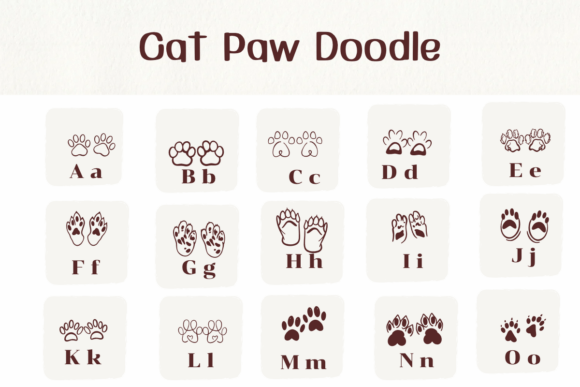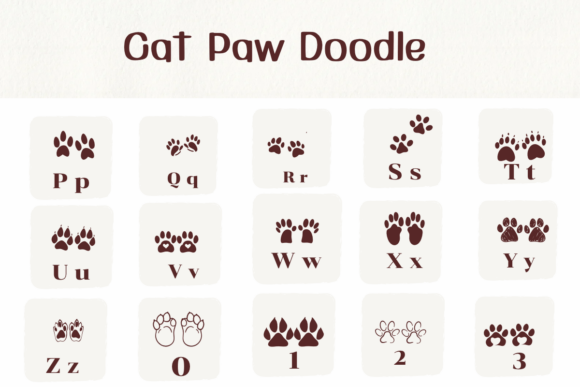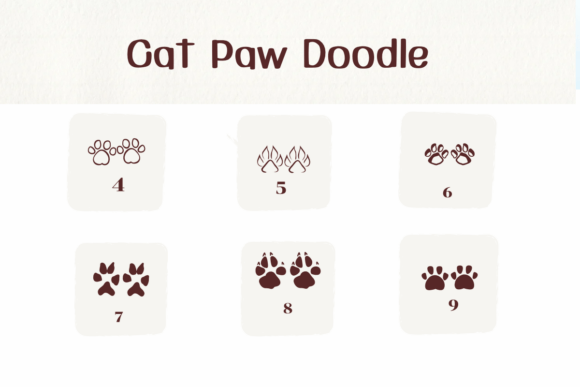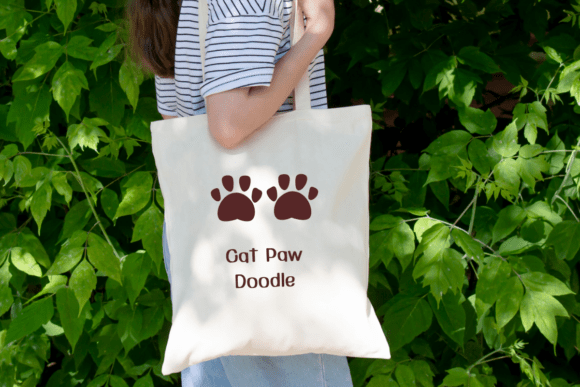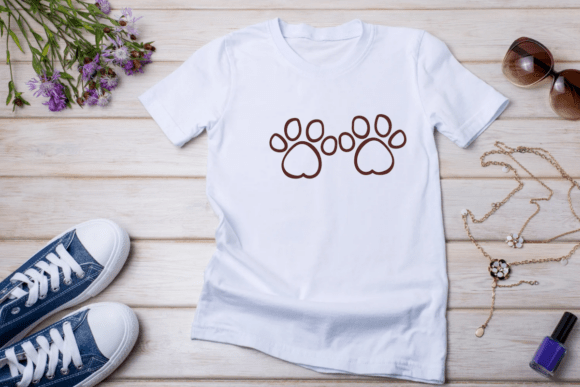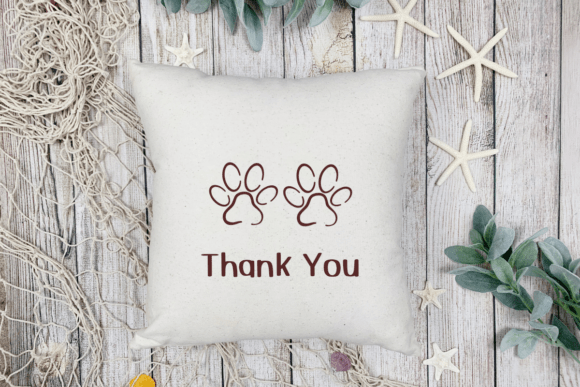
Get Ready to Purr-fect Your Designs
Who hasn’t been inspired by a furry friend at some point in their creative journey? For many designers, the simple act of watching a cat curl up on their lap or chase a ball of yarn can spark an idea. This time, it’s the playful paws that got us thinking – what if we could add a touch of feline charm to our designs?
Enter the Cat Paw Doodle Font, a delightful dingbats font packed with a variety of whimsical cat paw illustrations. From sketchy outlines to filled prints, this font is the perfect addition to any designer’s toolkit. Whether you’re working on a pet-themed project, crafting labels, or creating kids’ designs, the Cat Paw Doodle Font is sure to add a playful touch. And for designers looking to infuse their work with instant cuteness and character, this font is a valuable asset.
Cat Paw Doodle Font Key Features
- Font Family: A whimsical, hand-drawn font with a playful cat paw design.
- Unique Characteristics: Features intricate cat paw details, cute paw prints, and playful swashes, adding a touch of whimsy to your designs.
Designer Review: Cat Paw Doodle Font
At first glance, I was charmed by the whimsical, playful vibe of the Cat Paw Doodle Font. The irregular, hand-drawn style is reminiscent of doodles and artwork, giving it a unique and quirky feel. ✨ The font’s flexibility in terms of spacing and size makes it versatile for various design applications. ✨
However, I do have some reservations about this font. One of the main limitations is the lack of consistency in the letterforms. Some letters appear more fluid and natural, while others look more forced and uneven. This inconsistency can make the font look amateurish or unpolished. ⚠️ Additionally, the font’s readability can be affected in certain contexts, particularly in smaller font sizes or when used in body text. ⚠️
What’s Missing
- Consistency in letterforms
- Improved readability in smaller font sizes
- A more comprehensive character set
In conclusion, while the Cat Paw Doodle Font has its charm and unique qualities, it falls short in terms of polish and versatility. With some refinement and attention to detail, this font could be a standout in the design community. As it stands, I would recommend it for niche applications where its quirky charm can shine, but not for more formal or professional design projects.
Get the most out of the Cat Paw Doodle Font by using it for:
- Whimsical illustrations and designs.
- Children’s book covers and illustrations.
- Handmade or vintage-inspired designs.
The Cat Paw Doodle Font is a fun and playful font, but it may not be suitable for all design projects. Here are a few alternatives to consider: